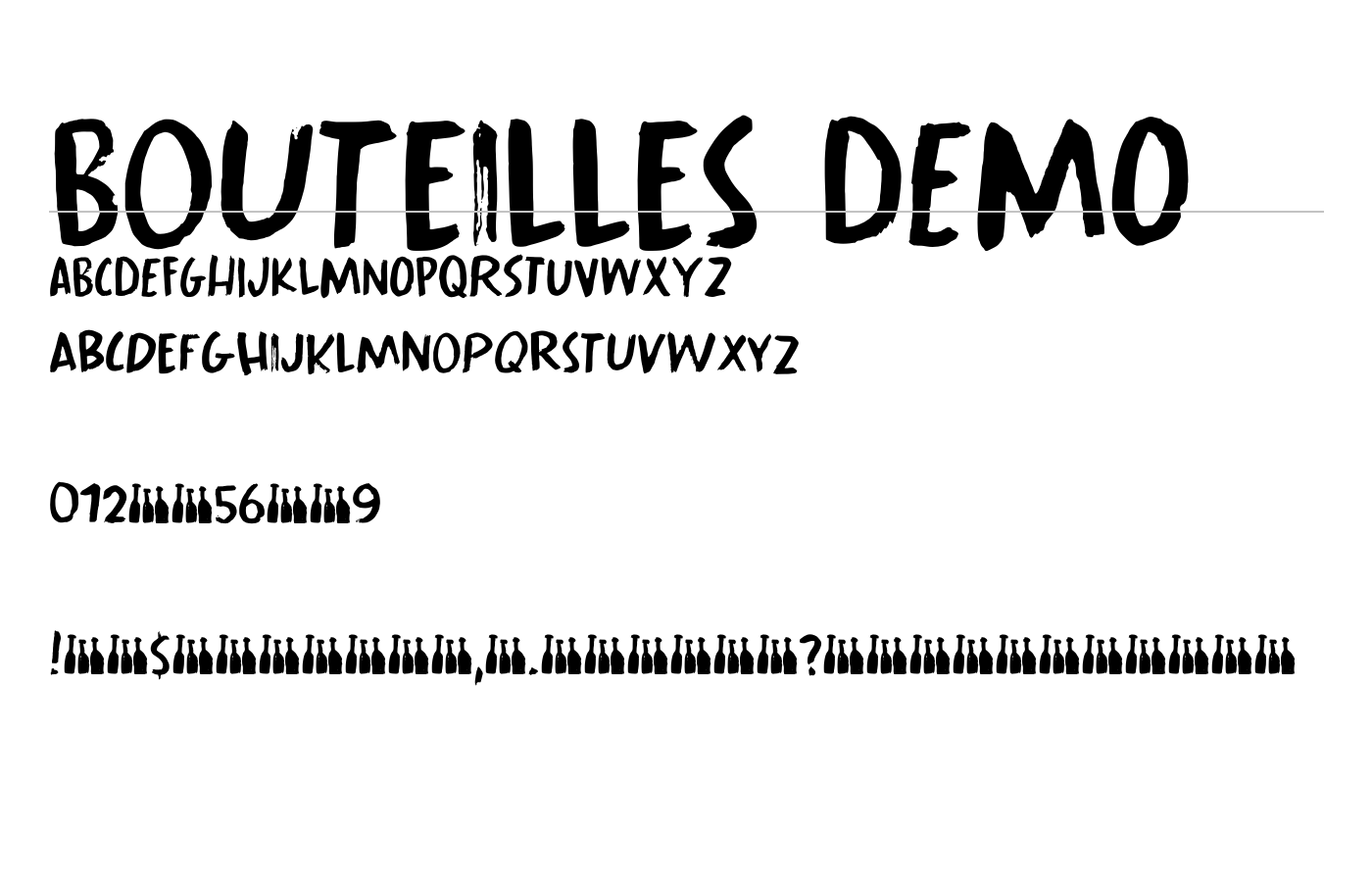
Bouteilles DEMO is a bold, hand-drawn sans serif font with a playful and casual personality. Its uneven strokes and brush-like texture give it an organic, artistic feel, making it ideal for creative projects, informal branding, or packaging that seeks a friendly, approachable vibe. This font works best for headlines or display use where its unique style and quirky charm can stand out.
Bouteilles DEMO Font
About Bouteilles DEMO Font
| Font family | Bouteilles DEMO Font |